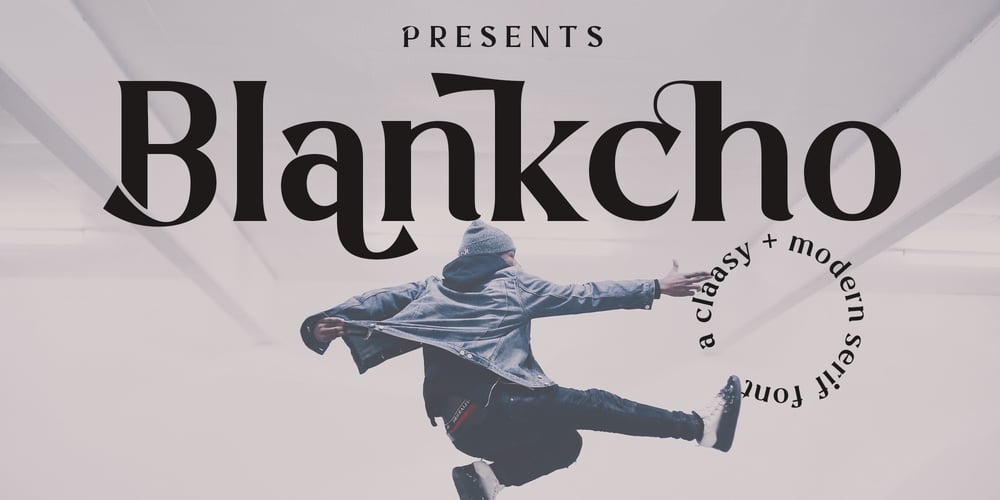
Blankcho Font Family was designed by Arif Fadilah and published by Luhop Creative. Blankcho contains 1 styles and family package options. Blankcho, There’s beauty in the plain version Blankcho, even without all the extras, for a clean and elegant minimal serif. Any version of Blankcho brings a touch of luxury and bespoke custom typography to modern logos, websites, social media quotes, wedding branding, and more.This font is PUA encoded which means you can access all of the amazing glyphs and ligatures with ease!